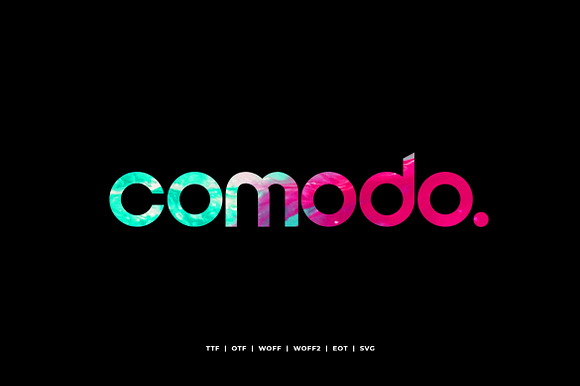
Comodo - Display Typeface
Introducing our brand new Display Lowercase Typeface Comodo - Decorative. This beautiful and Creative typeface suitable for Film Posters, headlines, Block letter, Subheading, Logo Designs, Big Banners Decorative Typography and Web Designs.
Why Comodo - Display Typeface is worth a look
Comodo - Display Typeface by Webhance Studio fits naturally into Branding, posters, packaging, typography.